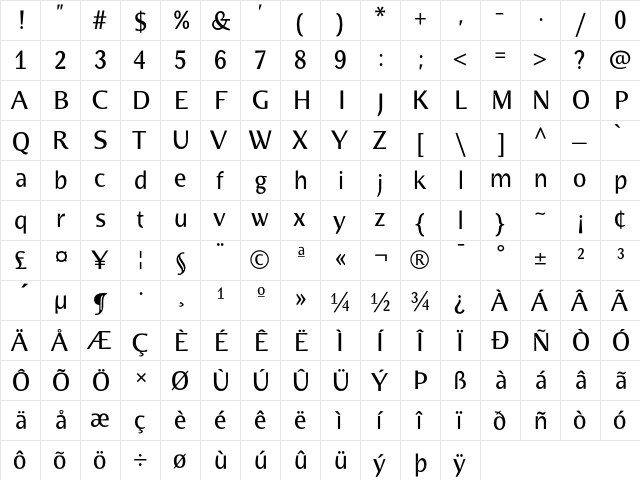
BradloSans Regular
Design Context for BradloSans Typeface
BradloSans offers clean, dependable letterforms without strong stylistic allegiance, making it a practical choice for designers who need flexibility.
Pro Tip: Pair BradloSans with a font of contrasting weight or personality to build a more expressive typographic hierarchy.